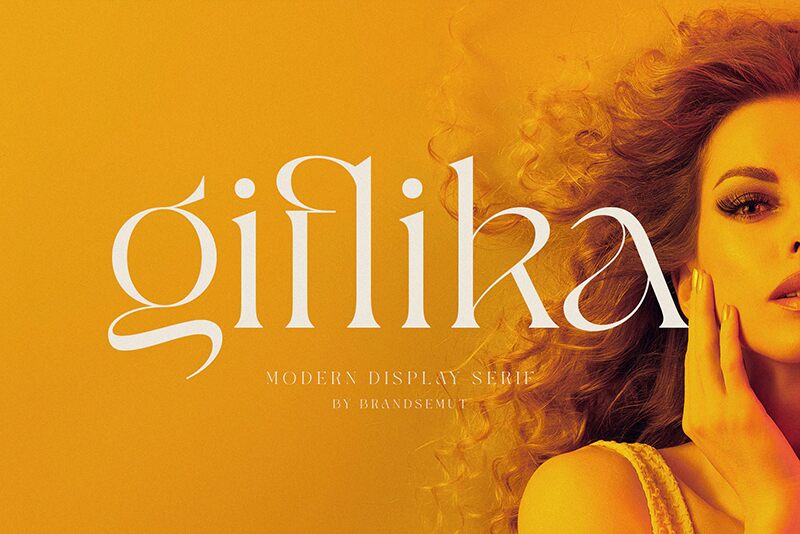
Giflika Regular
Giflika, a creation by BrandSemut, exudes a timeless elegance with its serif style. The font captivates with its enchanting flow, blending classic charm and contemporary finesse. Its serifs are tastefully crafted to add a touch of sophistication, while the smooth curves suggest a soft, welcoming tone.
The allure of Giflika lies in its versatility. It is well-suited for branding that aims to convey reliability and style. From editorial design to upscale product packaging, this font has the potential to elevate any project it graces. Whether it's the centerpiece of a logo or the body text in an invitation, Giflika's aesthetic appeal makes it an excellent choice for designers seeking both beauty and functionality in typography.